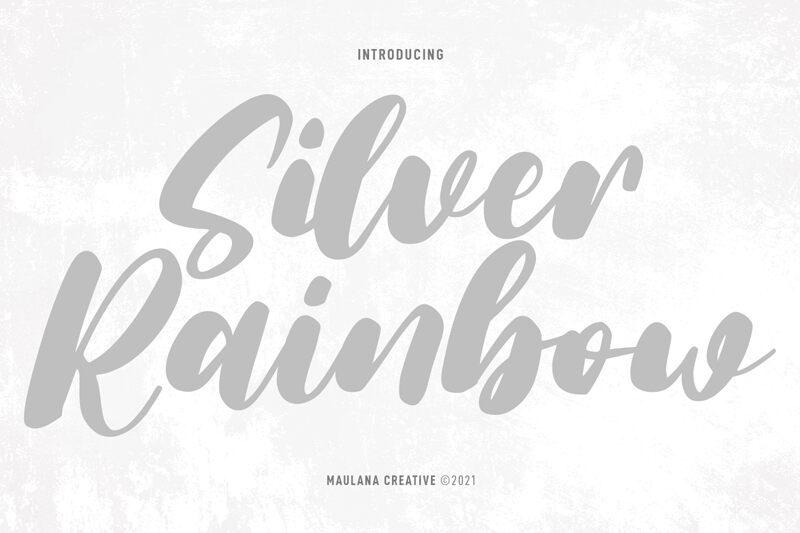
Silver Rainbow Free Regular
Silver Rainbow is the perfect handwritten marker font for any project that needs a bold and energetic touch. Created by the talented designer, Maulana Creative, this font is sure to catch attention with its unique style and personality. Its bold weight makes it suitable for headlines, titles, and branding materials. Use it on posters or flyers to create striking visuals that will grab people's attention. Its playful style also makes it great for children's book covers or illustrations. Whether you're designing logos or creating social media graphics, Silver Rainbow is a versatile font that can add a pop of color and creativity to any project.